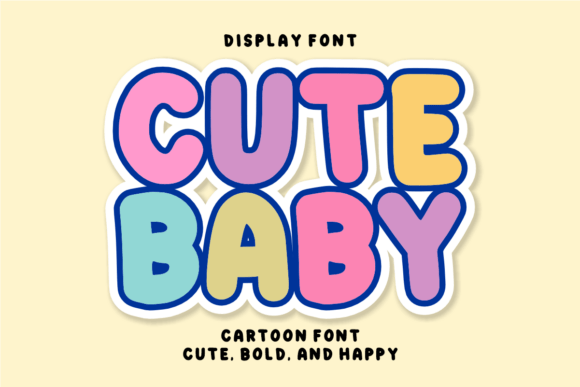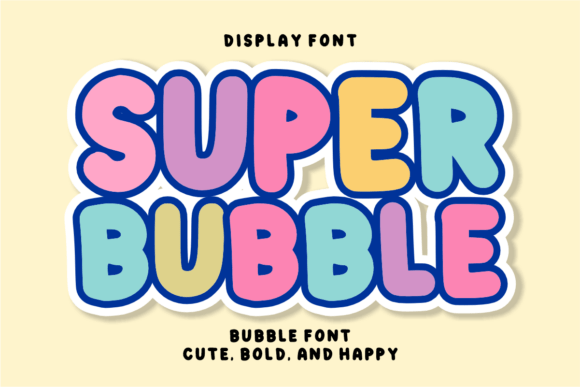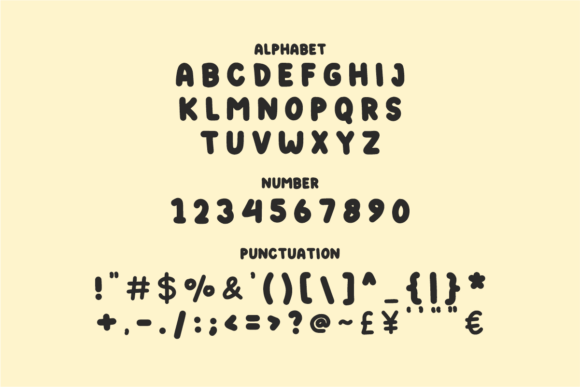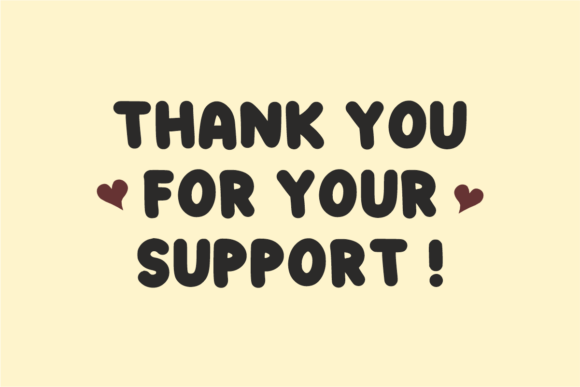
Introduction to Bubble Picnic Font
Have you ever been working on a creative project, pouring your heart and soul into the design, only to feel like something’s missing? That’s where the perfect font can make all the difference. For designers, finding the right font can be the key to unlocking a truly engaging and memorable design. And that’s exactly what the “Bubble Picnic Font” offers – a burst of happiness and playfulness that can elevate any project to the next level.
As a design resource, the “Bubble Picnic Font” is a standout, with its bold, chunky, and irresistibly cute style making it perfect for a wide range of creative projects. From kids’ birthday invitations to playful logos and eye-catching headlines, this font is guaranteed to make your text “pop”!
With its smooth outlines, thick strokes, and highly optimized performance for vinyl cutting and print-on-demand products, the “Bubble Picnic Font” is a valuable addition to any designer’s toolkit. And the best part? It’s available for a free download, making it accessible to designers of all levels.
Key Features of Bubble Picnic Font
- High-quality design resource with a transparent background, ideal for creative projects that require a unique and playful touch.
- Features a bold and whimsical design, perfect for adding a touch of personality to your creative project.
- Unique characteristics include a hand-drawn feel and a bubbly, playful aesthetic, making it perfect for projects that require a creative and eye-catching design.
Honest Review: Bubble Picnic Font
I recently stumbled upon the Bubble Picnic Font and I must say it’s a great addition to any design resource collection. This free download is perfect for creating eye-catching titles and headings for your next creative project.
One thing I love about this font is its unique design style, which features a whimsical and playful aesthetic. The transparent background option allows for seamless integration with other design elements, making it a high quality choice for designers.
- Unique and playful design style
- Transparent background option for seamless integration
- High quality design perfect for creative projects
- Not ideal for formal or professional projects
- Limited versatility in terms of font weights and styles
Overall, I’m impressed with the Bubble Picnic Font and would definitely recommend it for designers looking for a fun and creative font. However, it may not be the best choice for more formal or professional projects.
Bubble Picnic Font
The Bubble Picnic Font is a high-quality, free design resource perfect for creative projects that require a playful and whimsical touch. With its transparent background, this font is ideal for designers who want to add a pop of color and personality to their designs.
Tips for Getting the Most Out of Bubble Picnic Font
To get the most out of the Bubble Picnic Font, try using it in combination with other design elements, such as illustrations and graphics, to create a cohesive and visually appealing design. You can also experiment with different font sizes and colors to add depth and interest to your design.
Common Use Cases for Bubble Picnic Font
The Bubble Picnic Font is perfect for use in a variety of creative projects, including social media graphics, blog posts, and advertising materials. It’s also a great choice for designers who want to add a touch of whimsy and personality to their designs.